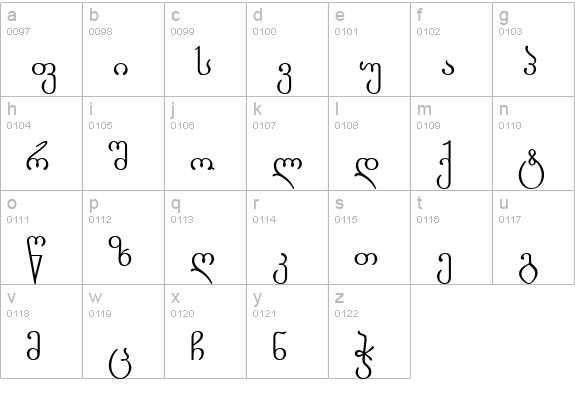
Gorda-ITV Font Details
Introducing Gorda-ITV, a modern and elegant font that exudes sophistication and style. With its sleek lines and contemporary design, Gorda-ITV is perfect for a wide range of projects, from branding to editorial design. This versatile font is sure to make a statement and leave a lasting impression. What makes Gorda-ITV even more appealing is that it is available for free download at FontsMarket.com. Yes, you read that right - this high-quality font can be yours without any cost. Simply head over to FontsMarket.com to get your hands on this fantastic typeface and elevate your design projects to the next level. Don't miss out on the opportunity to enhance your work with Gorda-ITV, the free font that combines beauty and functionality seamlessly.